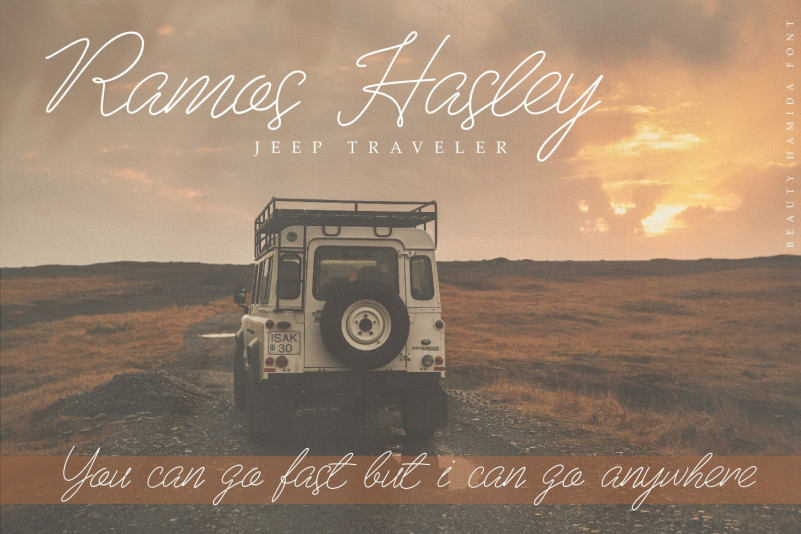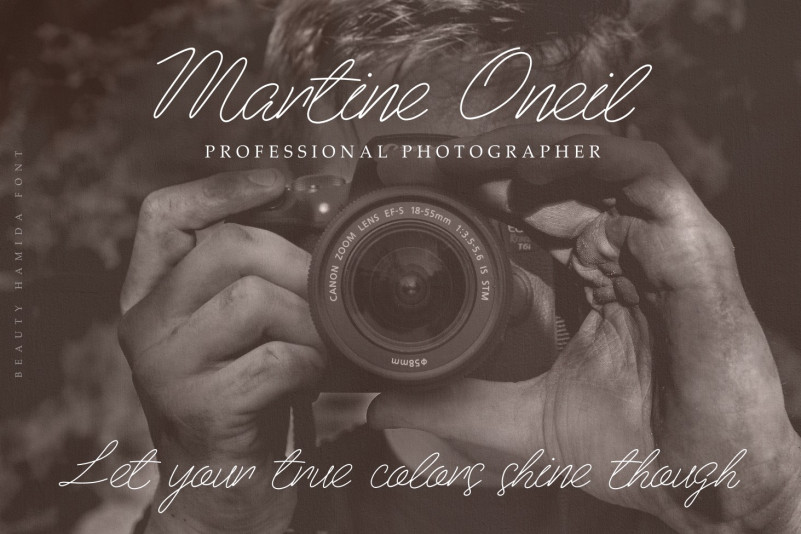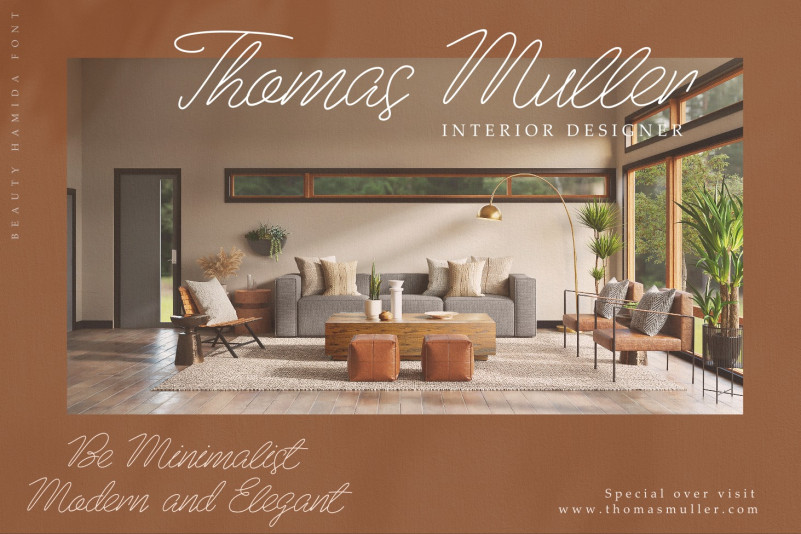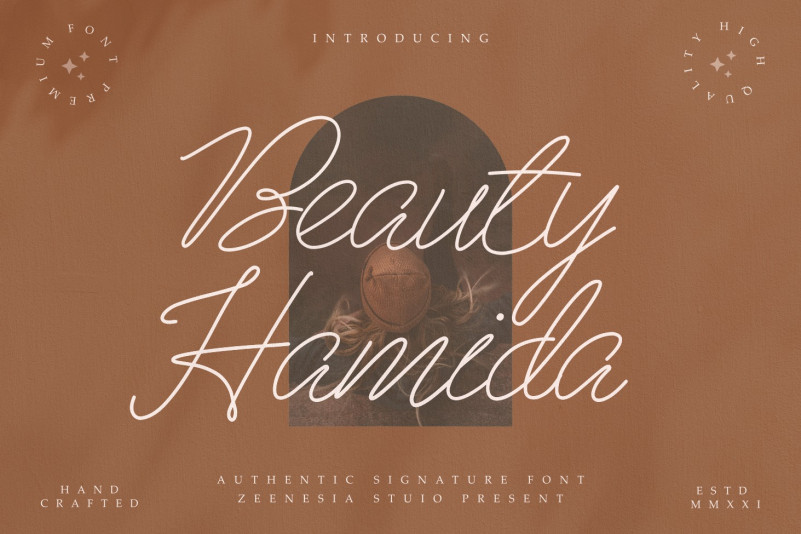
Beau Hamida Handwritten Font
This is another lovely modern signature and mono line font, which is combining the style of classic signature with an modern style. Suitable to a wide variety of designs due to its versatility, this font has the potential to become your favorite go-to font, no matter the occasion!